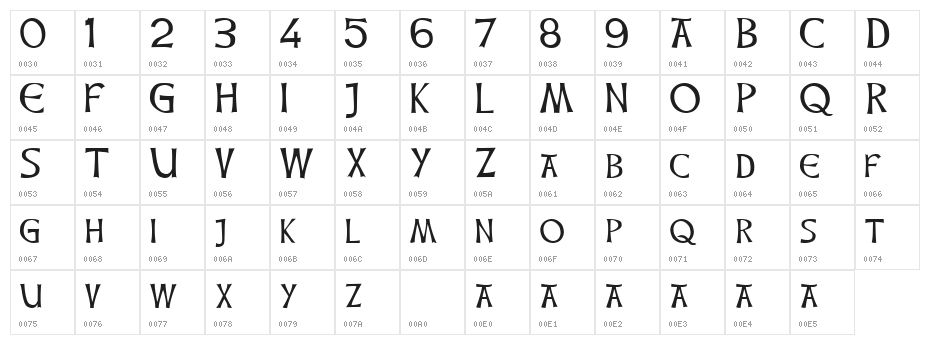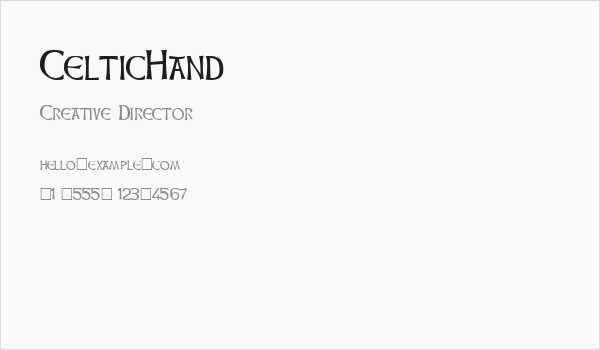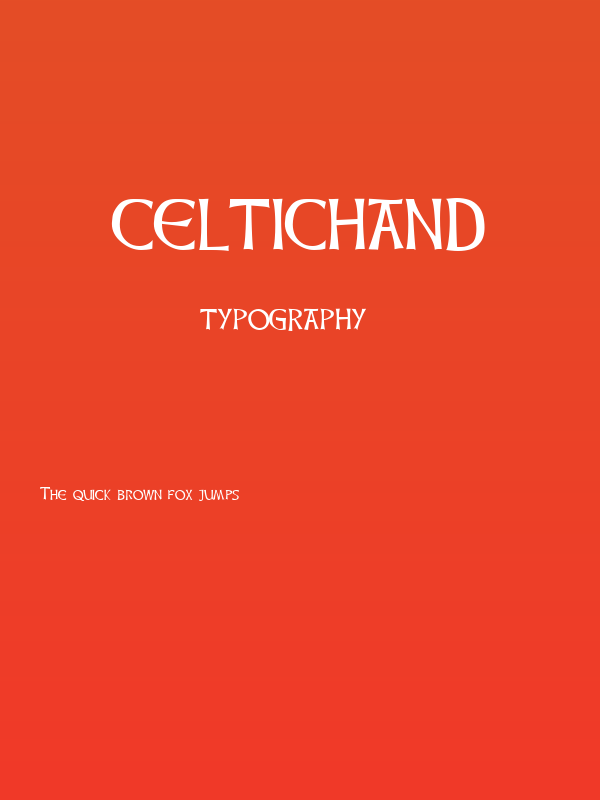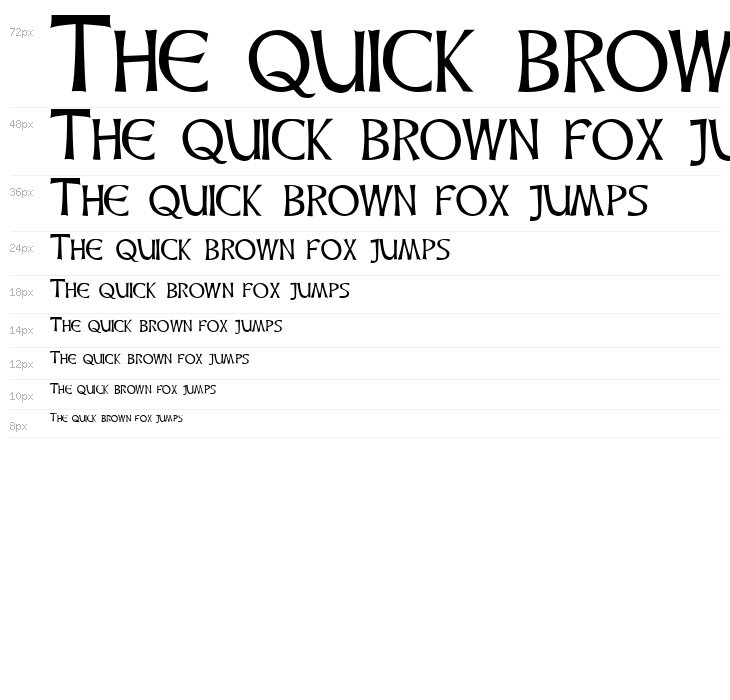
CelticHand Font
CelticHand Description
This font features a unique blend of traditional and modern elements, characterized by its distinctively curved and angular strokes. The uppercase letters exhibit a strong presence with their bold, sweeping lines and sharp edges, reminiscent of ancient Celtic script. The lowercase letters maintain a consistent style, offering a harmonious flow with slightly narrower forms. Numbers are crafted with a similar aesthetic, ensuring readability while maintaining the font's artistic flair. The special characters are designed to complement the overall style, making them suitable for decorative purposes.
| Proposed Projects | Ideal for projects requiring a historical or cultural touch, such as event posters, book covers, or themed branding. |